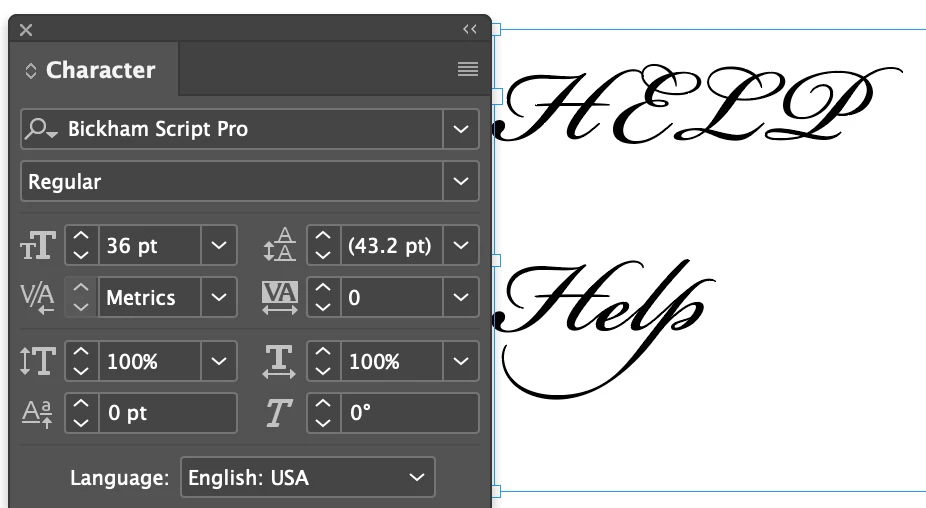
Is their a way for me to connect these dots? I like the font but I want it to be connected, is that possible? Or are their any fonts that are similar to this (that isnt dotted)?
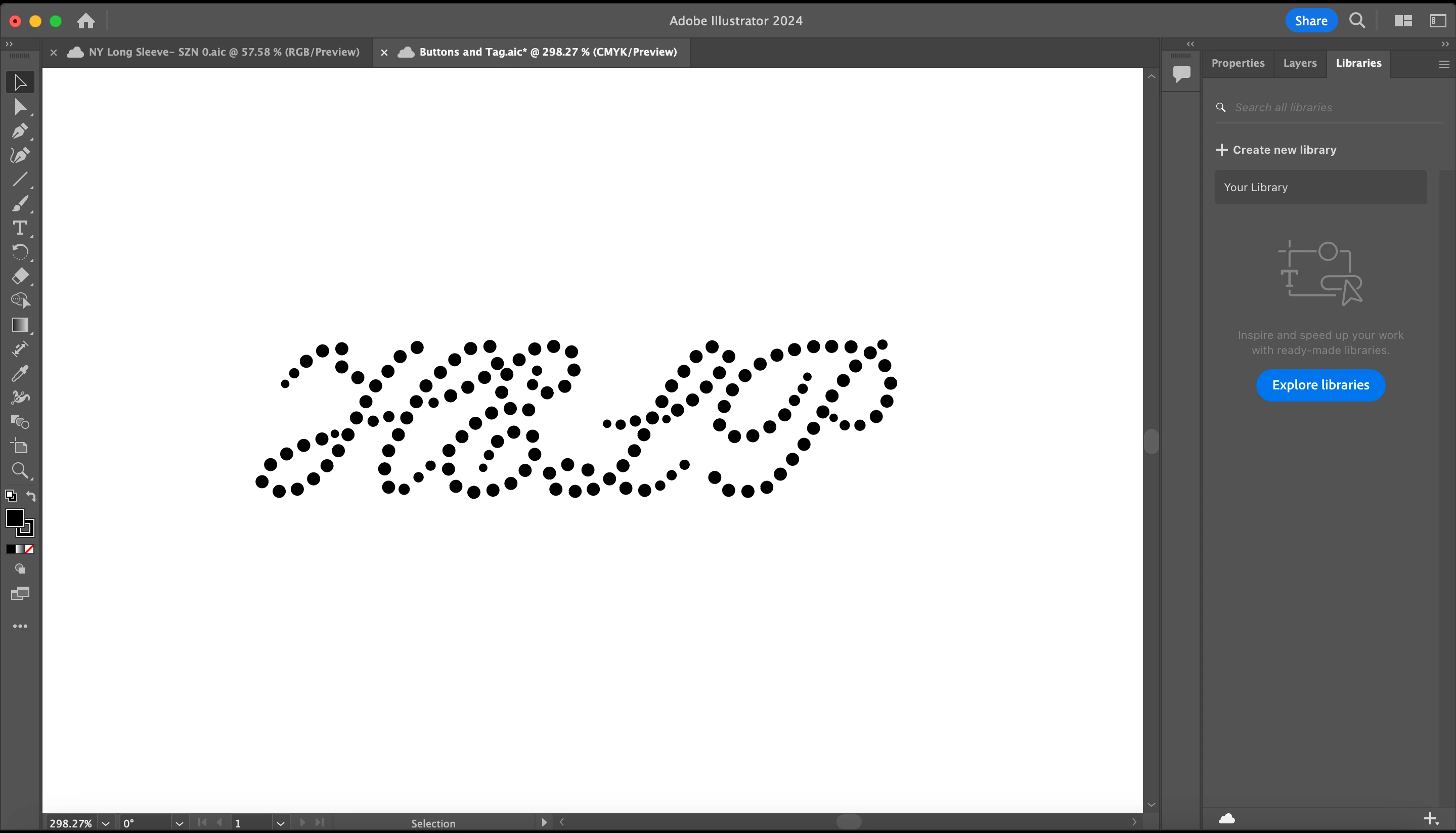
Is their a way for me to connect these dots? I like the font but I want it to be connected, is that possible? Or are their any fonts that are similar to this (that isnt dotted)?